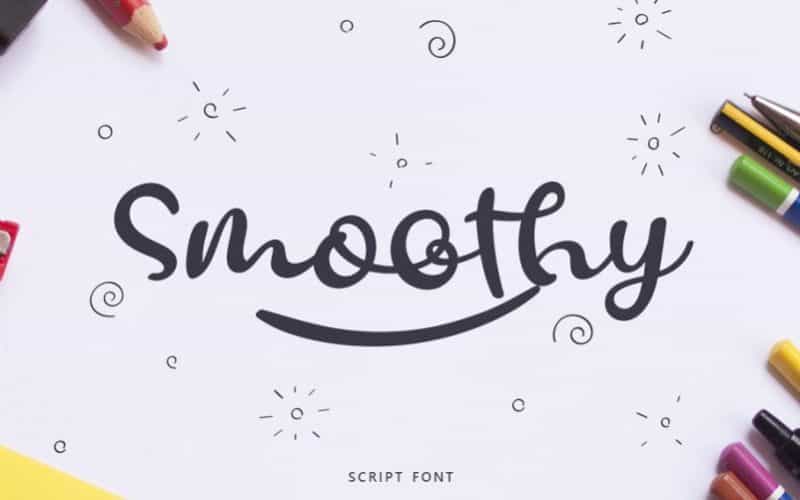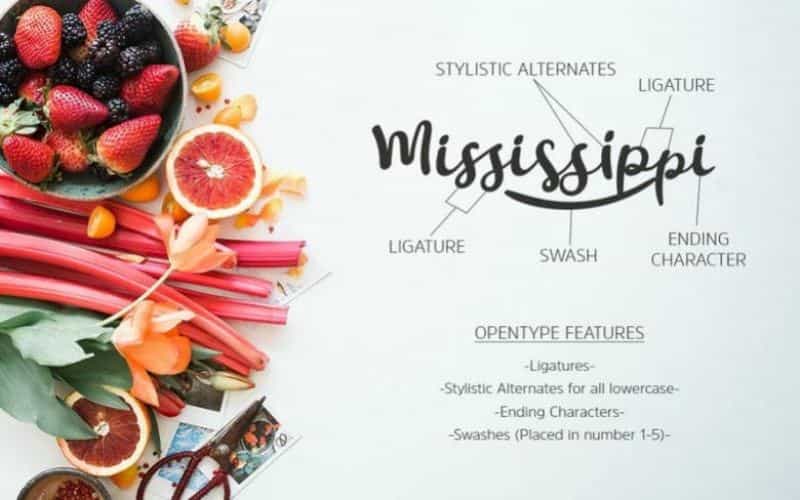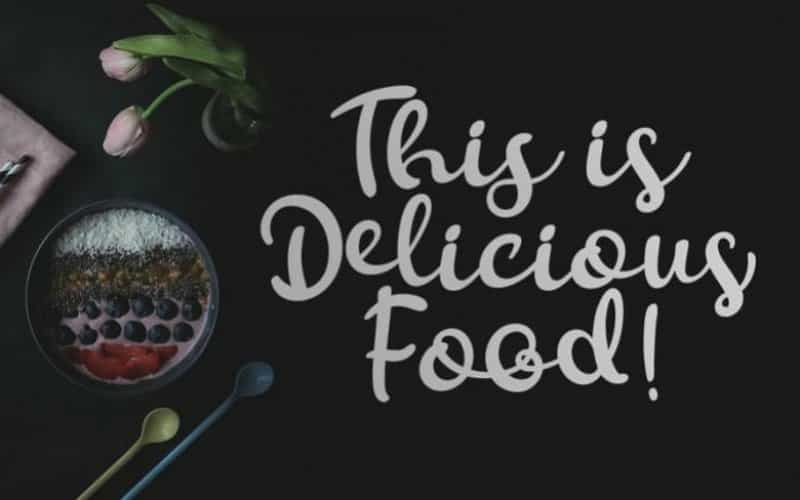
Smoothy is a sweet and bold script font. Digital brush was the tool, which Smoothy was created with, it has smooth edge, and it is very suitable for almost all design projects. This will be a great help in designing logos, branding, packaging, books, t-shirts, headlines, weddings, quotes, and many more.